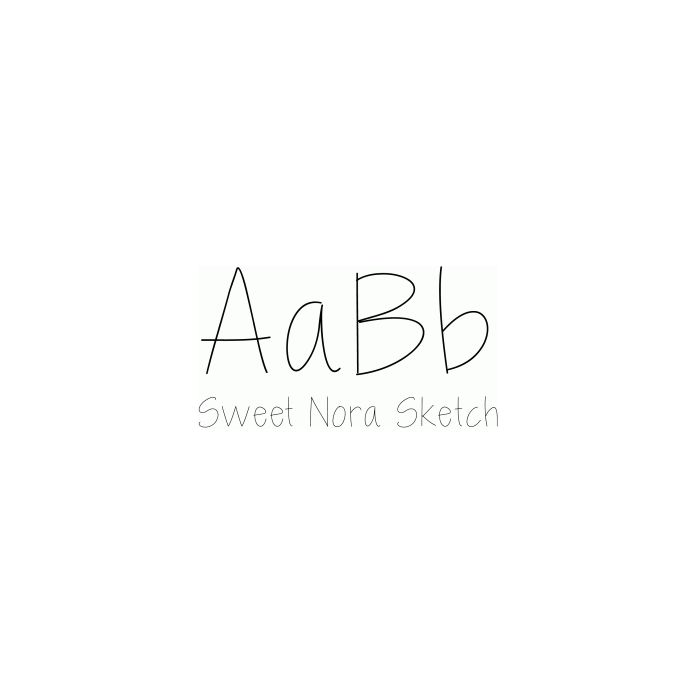
This font was designed to be sketched and not cut out. Find the cuttable version in my portfolio.
This font includes the alphabet, numbers, and basic punctuation.